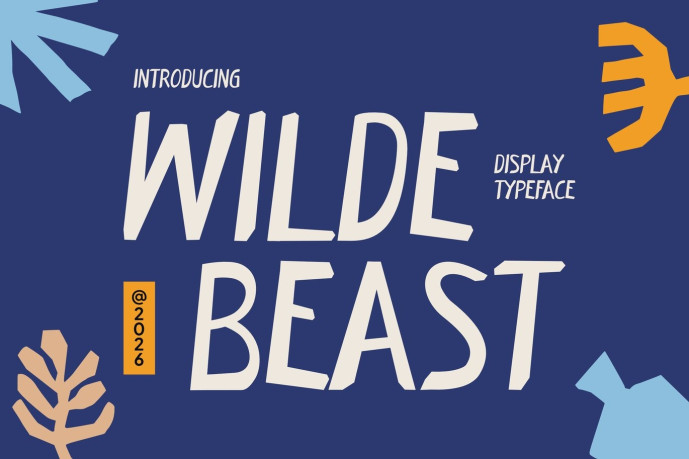
Wildebeast – Handwritten Kids Font
Designer: Aivos Dreams Team
Wildebeast is an expressive handwritten display font crafted for creative poster design, art event branding, and bold visual storytelling. Featuring tall organic letterforms, natural brush-inspired strokes, low contrast, and slightly irregular proportions, it creates a spontaneous handcrafted look that feels energetic, artistic, and highly engaging.
Designed with the spirit of art festivals, creative workshops, gallery promotions, and social media campaigns in mind, Wildebeast delivers a strong visual presence while maintaining excellent readability. Its freeform structure gives every headline a human touch that feels authentic and memorable.
From exhibition posters and creative branding projects to editorial layouts, packaging, social media graphics, and event promotions, Wildebeast helps designers communicate originality and artistic confidence. Its handcrafted personality captures attention instantly, making it ideal for brands and creators who want their message to feel expressive, approachable, and full of creative energy. Whether you’re promoting an art fair, launching a creative business, building an educational campaign, or designing content for makers and artists, Wildebeast brings visual character that audiences remember.